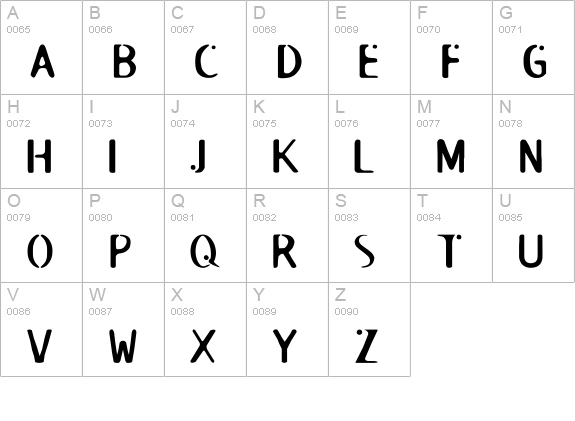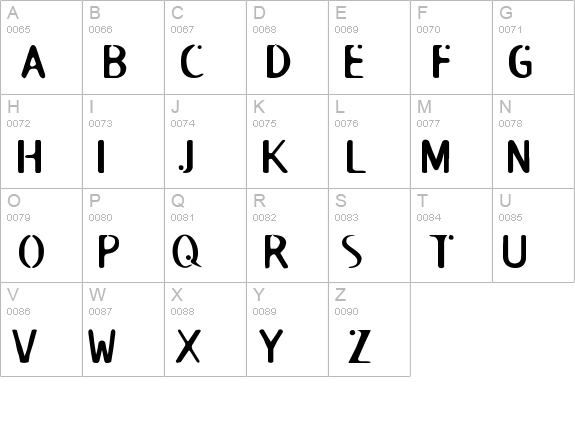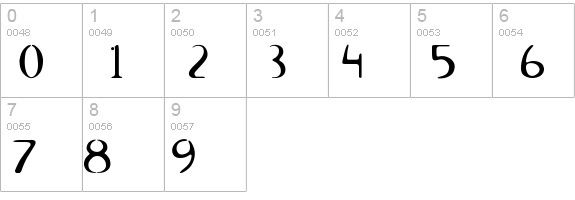
ROSWELL Font Details
ROSWELL font exudes a perfect blend of elegance and modernity, making it a versatile choice for various design projects. With its sleek lines and stylish curves, this font adds a touch of sophistication to any piece of work. Whether used in a logo, poster, or website design, ROSWELL font is sure to captivate the audience with its unique charm. What makes ROSWELL font even more appealing is that it is available for free download at FontsMarket.com. Now, you can easily access this stunning font and enhance your designs without any cost. Don't miss out on the opportunity to elevate your projects with the exquisite ROSWELL font – get your free download today at FontsMarket.com!